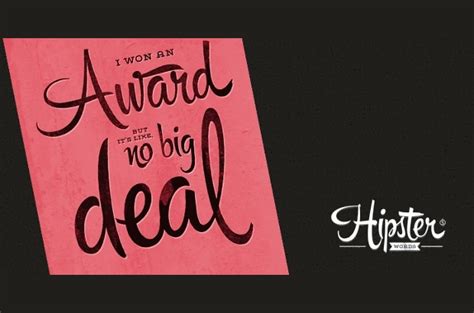
Hipster Script Regular Font Free Download : Download Script-S841-Regular Font - Free Font Download - Best free hipster fonts 2017.. Related post excellent modern fonts series: They are organized into highly regular formal types similar to cursive writing and looser, more casual scripts. Sign up and start building your font collection. Check out these excellent although not free hipster fonts. Hipster script received a judge's choice certificate of excellence at the type directors club of new york and was selected to be part of the bienal tipos latinos this is bolyar sans pro font family.
If you want to create professional printout, you should consider a commercial font. $ free > personal use. Here are my favorite free hipster fonts for your enjoyment and downloading pleasure. In addition to the interest in retro fashion trends, they have another important feature — amorphous. Hipster script is another of my habitual attempts at trying to reduce the divide between manual and digital. Copyright (c) 2012 by ale paul. ( fonts by hanoded ). Hipster font download hipsters claim a higher social status, but doing it is not so radical and bright as the representatives of other subcultures.
Hipster script is another of my habitual attempts at trying to reduce the divide between manual and digital. Hipster script pro is a trademark of ale paul. Votes, rated based on results identification. $ free > personal use. Discover everything about hipster script font family.
Licensed for personal and commercial use. Free fonts often have not all characters and signs, and have no kerning pairs (avenue ↔ a venue, tea ↔ t ea). It took more than 1 year hard work to transform the existing bolyar pro from serif to sans serif version. Some scripts are more formal like elegant calligraphy, while others are casual like cursive handwriting. — hipster script received a judge's choice certificate of excellence at the type directors of new york and was selected to be part of the bienal tipos latinos 2012 and as a typographica favorite typefaces of the year. Rupster script free / hipster #otf #кириллица #латиница. Designed by alejandro paul in 2012. Hipster script w00 regular font info.
— hipster script received a judge's choice certificate of excellence at the type directors of new york and was selected to be part of the bienal tipos latinos 2012 and as a typographica favorite typefaces of the year.
Hipster script pro fonthipster script is another of my habitual attempts at trying to reduce the divide between manual and digital. Hipster script regular font 3.44/5. Download and install free script fonts of the best quality from free fonts and use on your own personal and business related design purposes. Hipster script received a judge's choice certificate of excellence at the type directors of new york and was selected to be part of the bienal tipos latinos 2012. They are organized into highly regular formal types similar to cursive writing and looser, more casual scripts. Some scripts are more formal like elegant calligraphy, while others are casual like cursive handwriting. It took more than 1 year hard work to transform the existing bolyar pro from serif to sans serif version. — hipster script received a judge's choice certificate of excellence at the type directors of new york and was selected to be part of the bienal tipos latinos 2012 and as a typographica favorite typefaces of the year. Similar fonts for hipster script regular from myfonts.com. Check out these excellent although not free hipster fonts. Perfect for branding projects, logo design, clothing branding, product packaging. Best free hipster fonts 2017. Discover everything about hipster script font family.
It took more than 1 year hard work to transform the existing bolyar pro from serif to sans serif version. Hipster script w00 regular font info. The quick brown fox jumps over the lazy dog. Hipster script pro is a trademark of ale paul. Hipster script received a judge's choice certificate of excellence at the type directors of new york and was selected to be part of the bienal tipos latinos 2012.
The quick brown fox jumps over the lazy dog. Hipster script pro fonthipster script is another of my habitual attempts at trying to reduce the divide between manual and digital. Font catalog with sorting by alphabetical, by category, by tag or by popularity. $ free > personal use. Archive of freely downloadable fonts. Discover everything about hipster script font family. Licensed for personal and commercial use. Perfect for branding projects, logo design, clothing branding, product packaging.
Here are my favorite free hipster fonts for your enjoyment and downloading pleasure.
Best free hipster fonts 2017. Here are my favorite free hipster fonts for your enjoyment and downloading pleasure. All fonts are free to download for commercial and personal use. Hipster script pro fonthipster script is another of my habitual attempts at trying to reduce the divide between manual and digital. Hipster script received a judge's choice certificate of excellence at the type directors of new york and was selected to be part of the bienal tipos latinos 2012. Sign up and start building your font collection. Free fonts often have not all characters and signs, and have no kerning pairs (avenue ↔ a venue, tea ↔ t ea). Discover everything about hipster script font family. Hipster script w00 regular download fonts free dafonts , free download full, free download fonts free. Hipster script pro is a trademark of ale paul. Get free related fonts to the current font. If you want to create professional printout, you should consider a commercial font. Hipster script received a judge's choice certificate of excellence at the type directors club of new york and was selected to be part of the bienal tipos latinos this is bolyar sans pro font family.